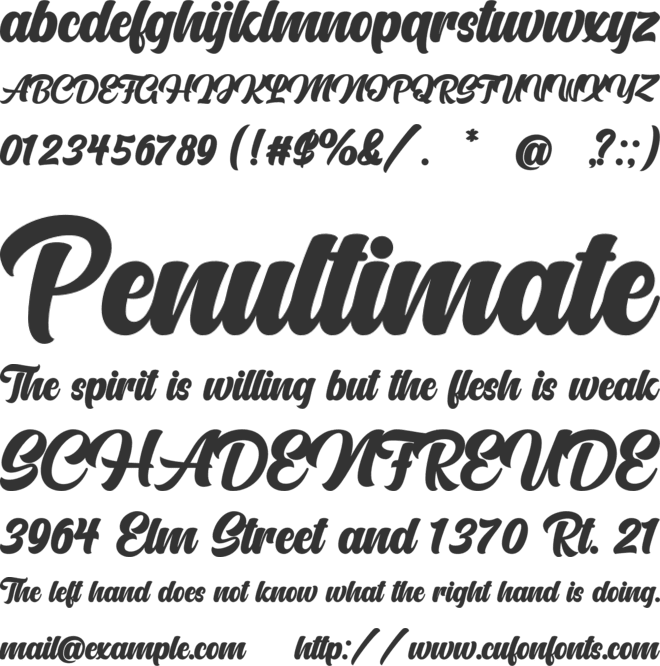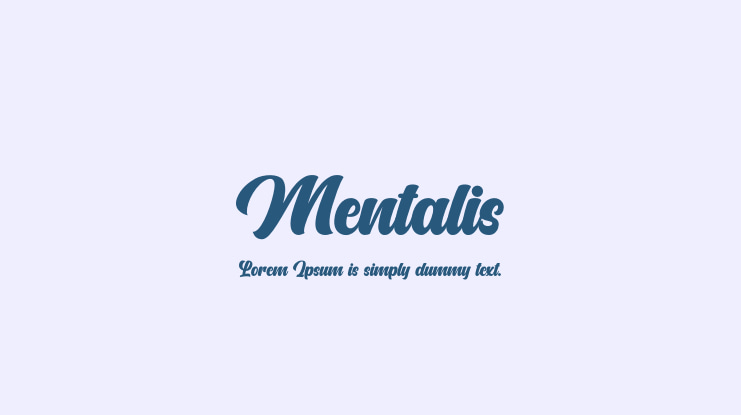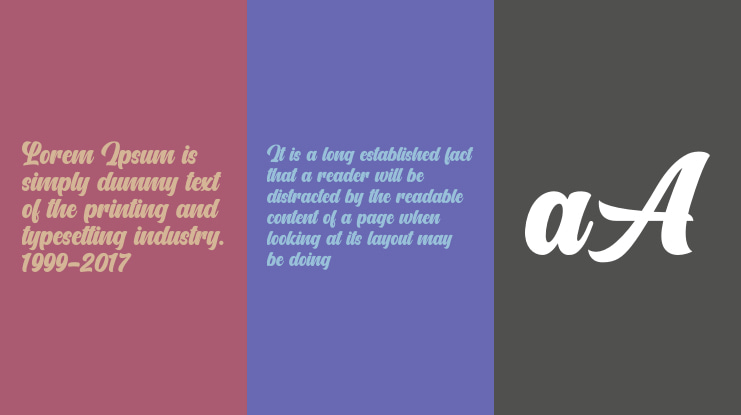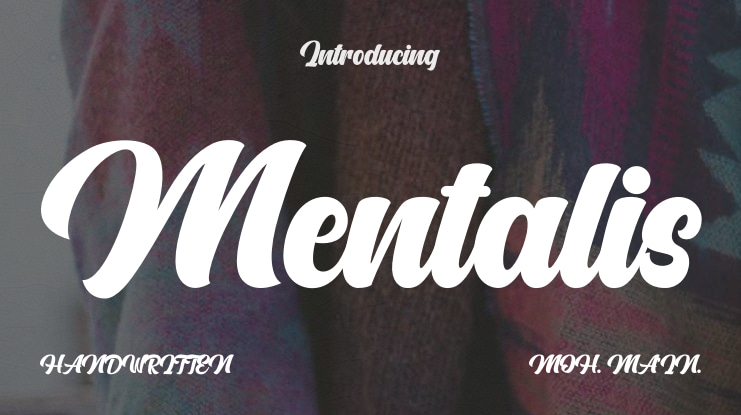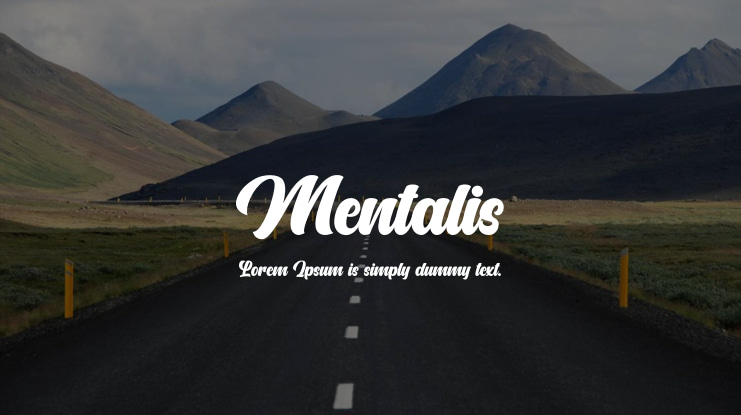
Mentalis Font
MOH. MA'IN.
Mentalis is a modern bold script font, crafted meticulously to achieve elegant curves and a unique form that hasn't existed before. This demo font is for PERSONAL USE ONLY! However, any donations are greatly appreciated. To donate, you can use our PayPal account: https://PayPal.Me/payrgbstudioLink.